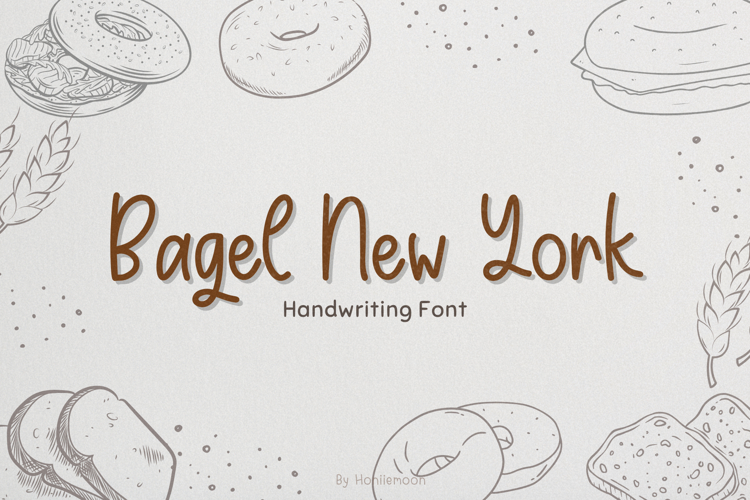
Bagel New York, a wonderfully charming and playful handwritten font designed to add a delightful touch to all your creative endeavors! With its natural flow and endearing letterforms, this font is perfect for projects that require a warm, friendly, and authentic feel.